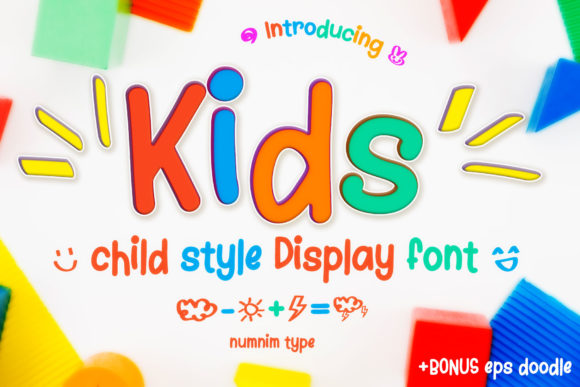
\n\nIntroducing Kids Font - the ultimate font for book titles that's guaranteed to bring a smile to your face! Created by the talented numnim, this unique script font is packed full of personality and charm. \n\nWhether you're looking to jazz up your school projects or add a touch of fun to your creative ideas, Kids Font is the perfect choice. With its playful, childlike quality, this font is guaranteed to inject some joy and energy into your work.\n\nKids Font is more than just a font - it's a statement. It embodies fun, quirkiness, and authenticity, making it the ideal choice for anyone looking to make an impact. Whether you're a designer, marketer, or simply looking to add some pizzazz to your writing, Kids Font is the perfect choice.\n\nWith its enchanting handwritten style, Kids Font is the perfect way to turn any creative idea into a true standout. Its childlike playfulness and unique character make it perfect for brightening up any kids' project, from book covers to posters, flyers, and more.\n\nSo why settle for a boring, generic font when you can stand out from the crowd with Kids Font? Give your projects the edge they deserve with this eye-catching, emotive font that's guaranteed to make an impact. Download it today and see for yourself why Kids Font is the font of choice for anyone looking to make a statement.\n\n